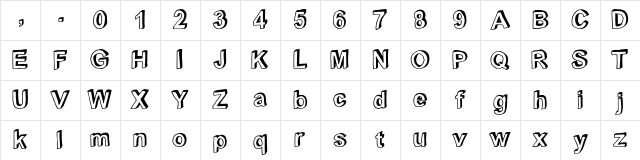
C rial black Regular
Foundry: J O E B O B graphics
Designer: J O E B O B graphics
Design Context for C rial black
C rial black is a composed and adaptable typeface that performs quietly and consistently across a wide range of design contexts.